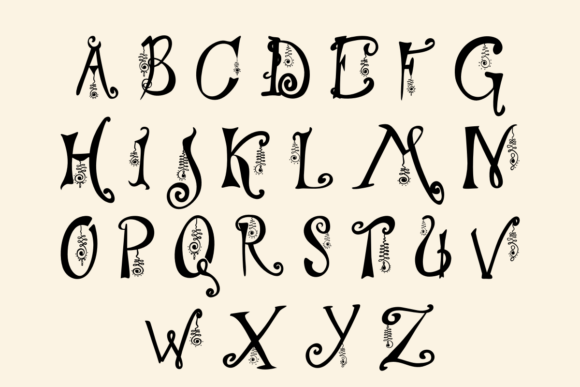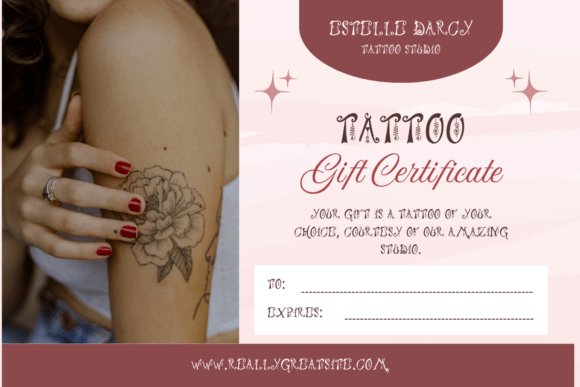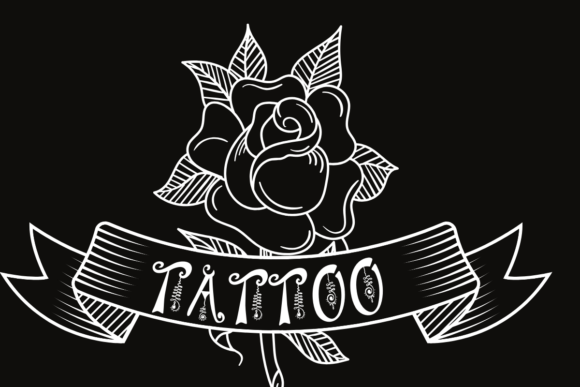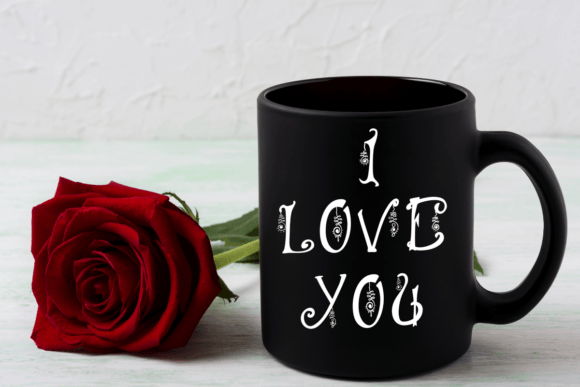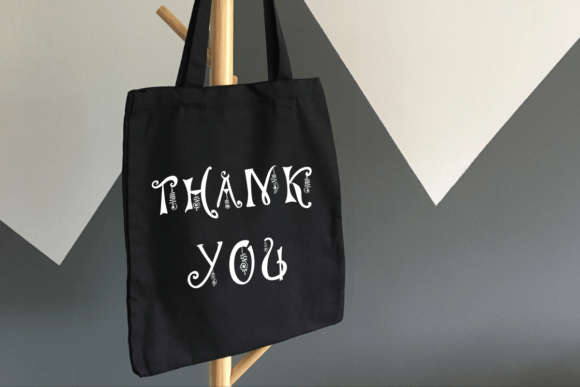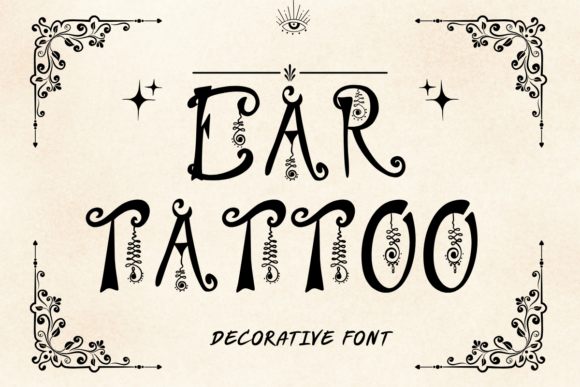
Ear Tattoo Font: Elevate Your Designs with Bold, Trendy Style
Are you tired of using the same old fonts in your designs? Do you want to add a touch of personality and whimsy to your creative projects? Look no further than the Ear Tattoo Font! This decorative font is perfect for designers and crafters who want to make a statement with their work. In this article, we’ll explore the unique features of the Ear Tattoo Font and how you can use it to take your designs to the next level.
What is Ear Tattoo Font?
Ear Tattoo Font is a decorative font that looks like stylish earrings or small tattoos. Each letter has designs that look like tiny piercings or jewelry, making it fun and unique. The font is perfect for creative projects that need a bold, trendy touch. Whether you’re designing a logo, creating a social media graphic, or crafting a handmade project, the Ear Tattoo Font is sure to turn heads.
Key Features of Ear Tattoo Font
- Unique Design: Each letter in the Ear Tattoo Font has a distinctive design that resembles a tiny earring or tattoo.
- Bold and Trendy: The font has a bold, eye-catching style that’s perfect for making a statement.
- Fun and Whimsical: The Ear Tattoo Font is playful and fun, making it perfect for creative projects that need a touch of personality.
How to Use Ear Tattoo Font in Your Designs
The Ear Tattoo Font is versatile and can be used in a variety of creative projects. Here are a few ideas to get you started:
- Logo Design: Use the Ear Tattoo Font to create a bold, eye-catching logo for your business or brand.
- Social Media Graphics: Add a touch of personality to your social media graphics with the Ear Tattoo Font.
- Handmade Crafts: Use the Ear Tattoo Font to add a decorative touch to your handmade crafts, such as jewelry, cards, or scrapbook pages.
- Party Decorations: Create fun and festive party decorations, such as banners or signs, with the Ear Tattoo Font.
Tips for Getting the Most Out of Ear Tattoo Font
Here are a few tips for getting the most out of the Ear Tattoo Font:
- Experiment with Colors: The Ear Tattoo Font looks great in a variety of colors, so don’t be afraid to experiment and find the perfect hue for your design.
- Mix and Match: Combine the Ear Tattoo Font with other fonts or design elements to create a unique and eye-catching look.
- Keep it Simple: Don’t overdo it – sometimes less is more. Use the Ear Tattoo Font sparingly to add a touch of personality to your design.